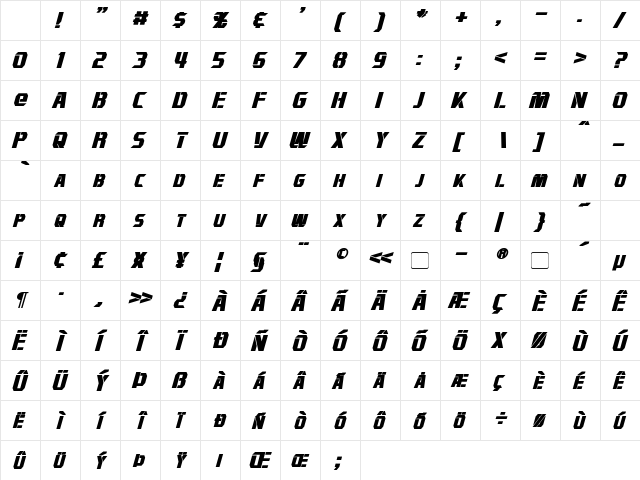
Complete Combatron Bold Italic glyph index. Displaying only characters natively supported by Combatron Bold Italic font.
Combatron has the no-nonsense character of military stencilling and tactical signage, projecting authority and directness. The slanted form adds forward momentum and visual energy. Its bold stroke weight gives it real presence on the page.
A strong choice for security brands, outdoor gear, and high-stakes visual communication.
Pro Tip: Try Combatron in all-caps for the most authentic military signage feel. It pairs well with stark, minimal layouts and muted colour palettes.